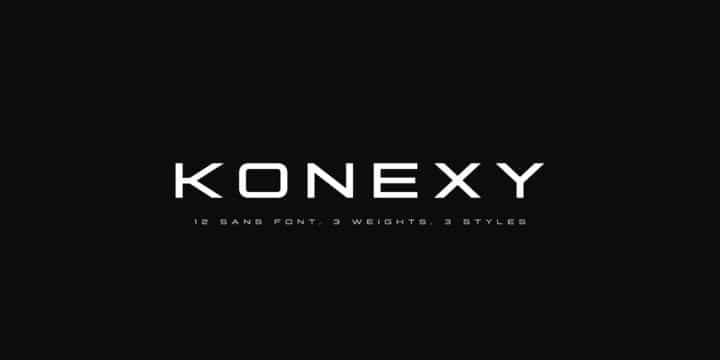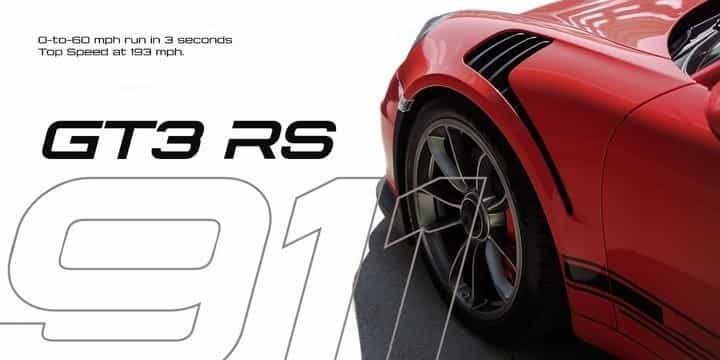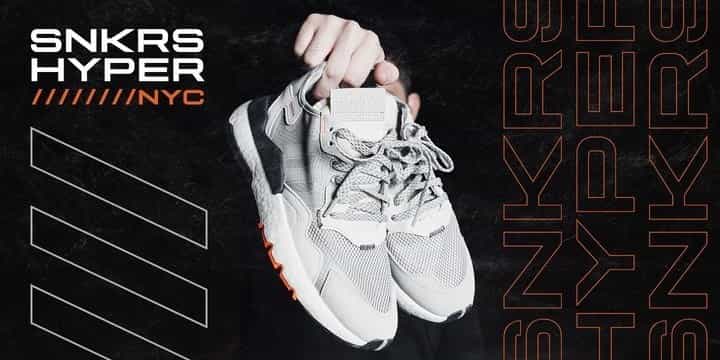
Konexy takes its inspiration from modern trends in technology and car design and sports. This typeface was developed for your design work. It comprises 322 glyphs, a pile of stylistic alternative characters for you to experiment with, and multi-language support that makes it possible to render your brand names in many different languages in the same document. It makes a sporty image super easily–even if you don’t have an official tagline yet!